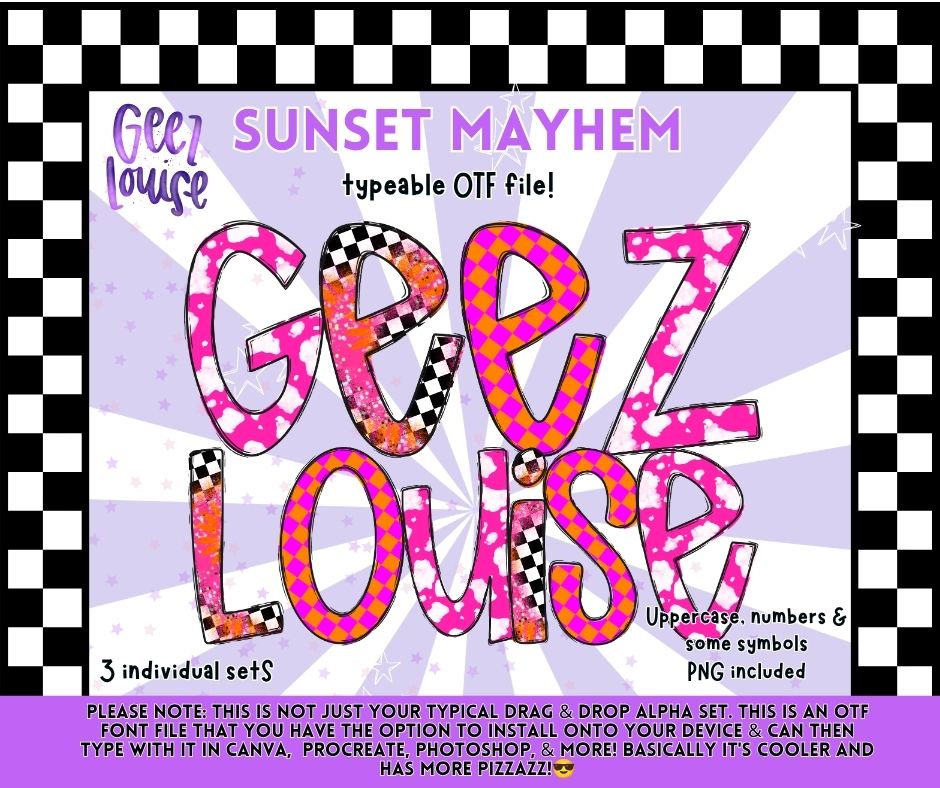
Sunset Mayhem OTF Alpha Font + PNG Set
Turn up the volume on your creations with Sunset Mayhem! 🩷🧡🏁
This bold and energetic typeable OTF font combines three vibrant coordinating styles inspired by neon sunsets, checkerboard chaos, and alternative summer vibes. Whether you're creating tees, tumblers, stickers, social media graphics, or digital products, this alpha is designed to make your designs impossible to ignore.
Style Features:
🩷 Neon Pink & Orange Color Palette
🏁 Checkerboard Details
✨ Paint Splatter Effects
☁️ Cloud Pattern Elements
⚡ Alternative & Punk-Inspired Aesthetic
🔥 Coordinating Design Extras Included